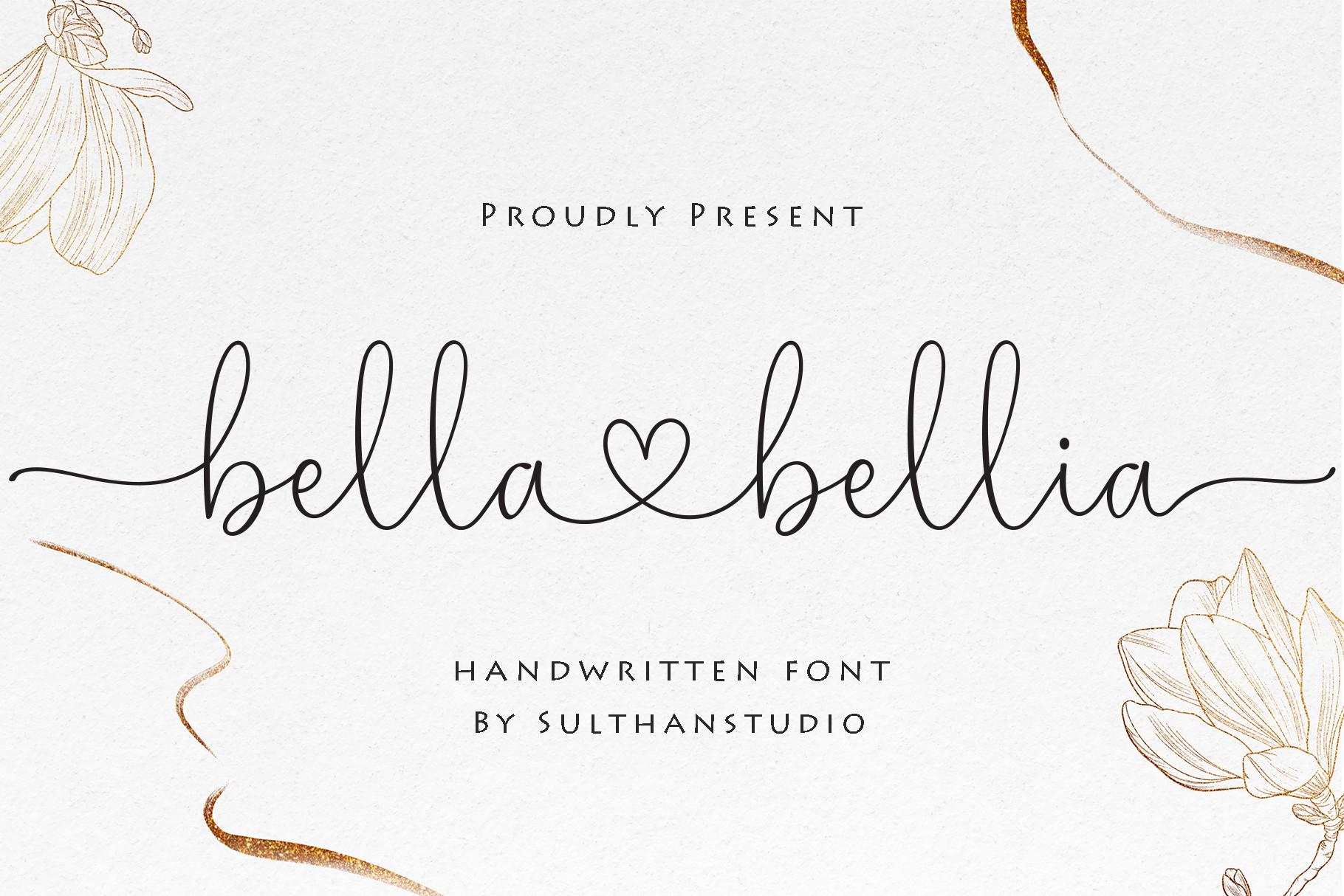
Bella Bellia Font Description
Bella Bellia is a beautiful and refined script font. It has a classy, elegant and modern look that can be used for logos, branding, invitations, stationery, wedding designs, social media posts, and much more! This font is PUA encoded which means you can access all of the glyphs and swashes with ease!